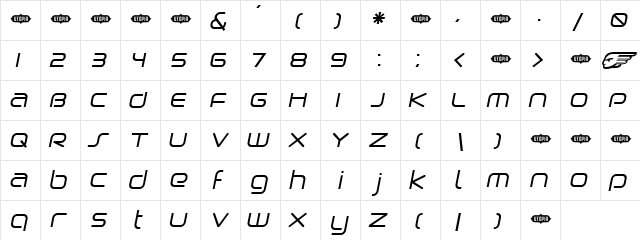
Birdman Oblique
Design Context for Birdman Typeface
Birdman offers clean, dependable letterforms without strong stylistic allegiance, making it a practical choice for designers who need flexibility. Its italic angle brings a sense of urgency and motion to the letterforms.
Pro Tip: Use Birdman for emphasis, pull quotes, and subheadings where its slanted energy can add rhythm to the layout.